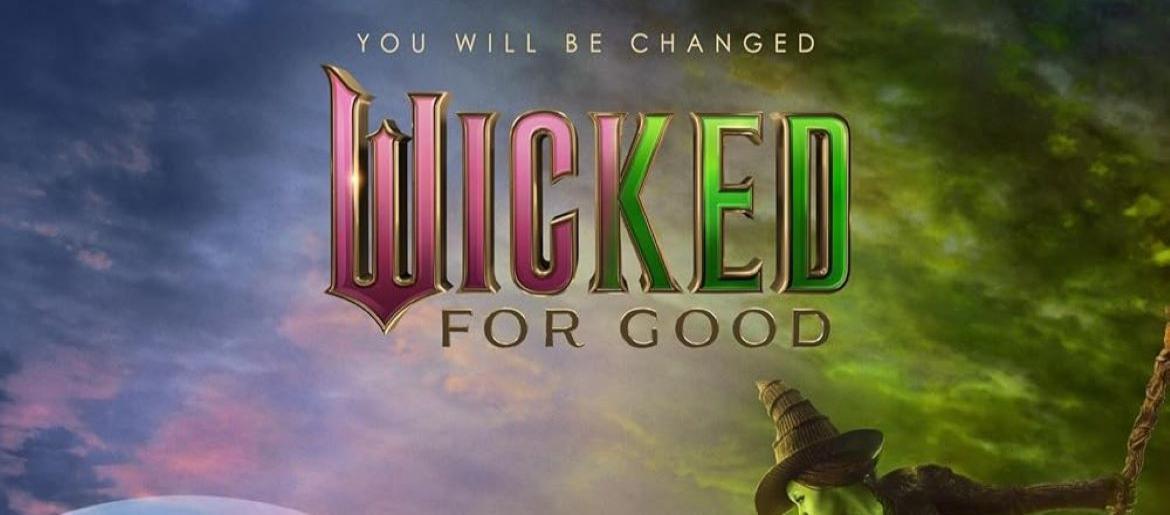
Wicked Font
The Wicked font is as bold and theatrical as the Broadway phenomenon itself. Its sharp, dramatic letterforms are filled with enchantment, perfectly capturing the magical and mysterious world of Wicked. With tall, striking characters and elegant curves, the font reflects the duality at the heart of the story: light versus dark, good versus misunderstood. The logo style closely resembles “Ravenscroft” and “Widow” by FG Studios, free for personal use.